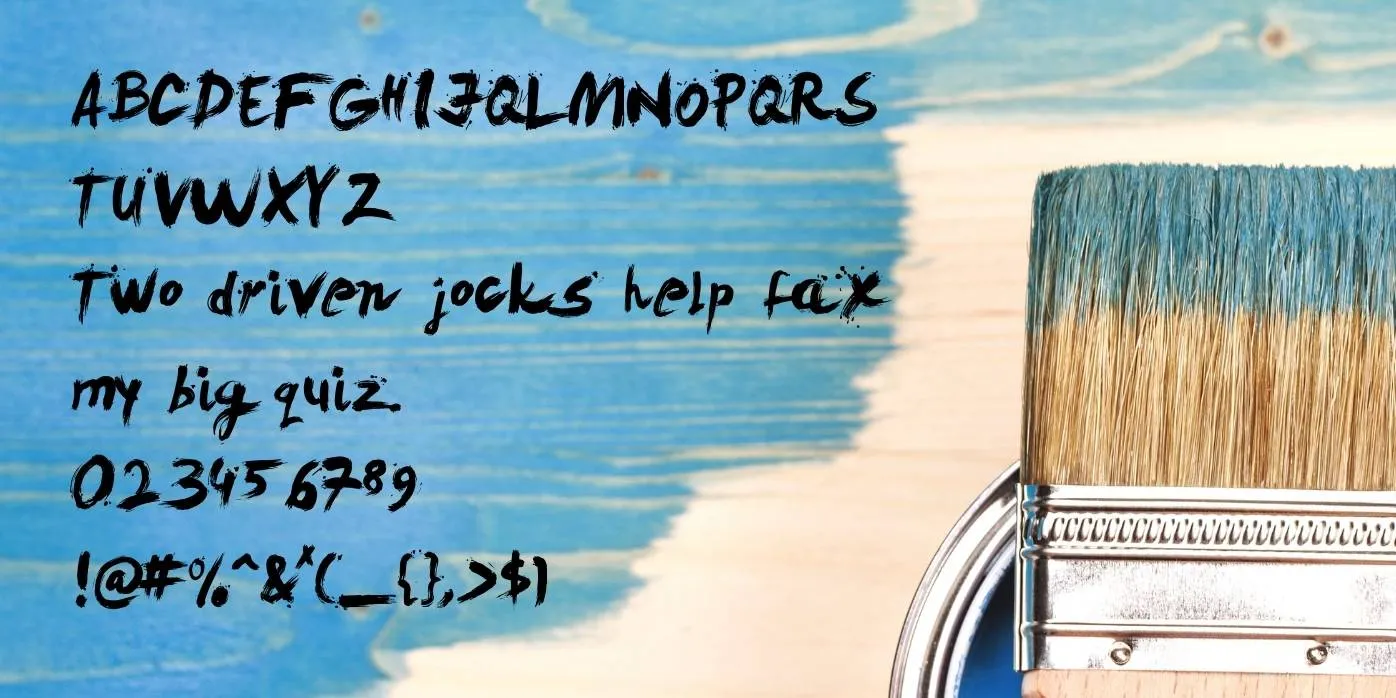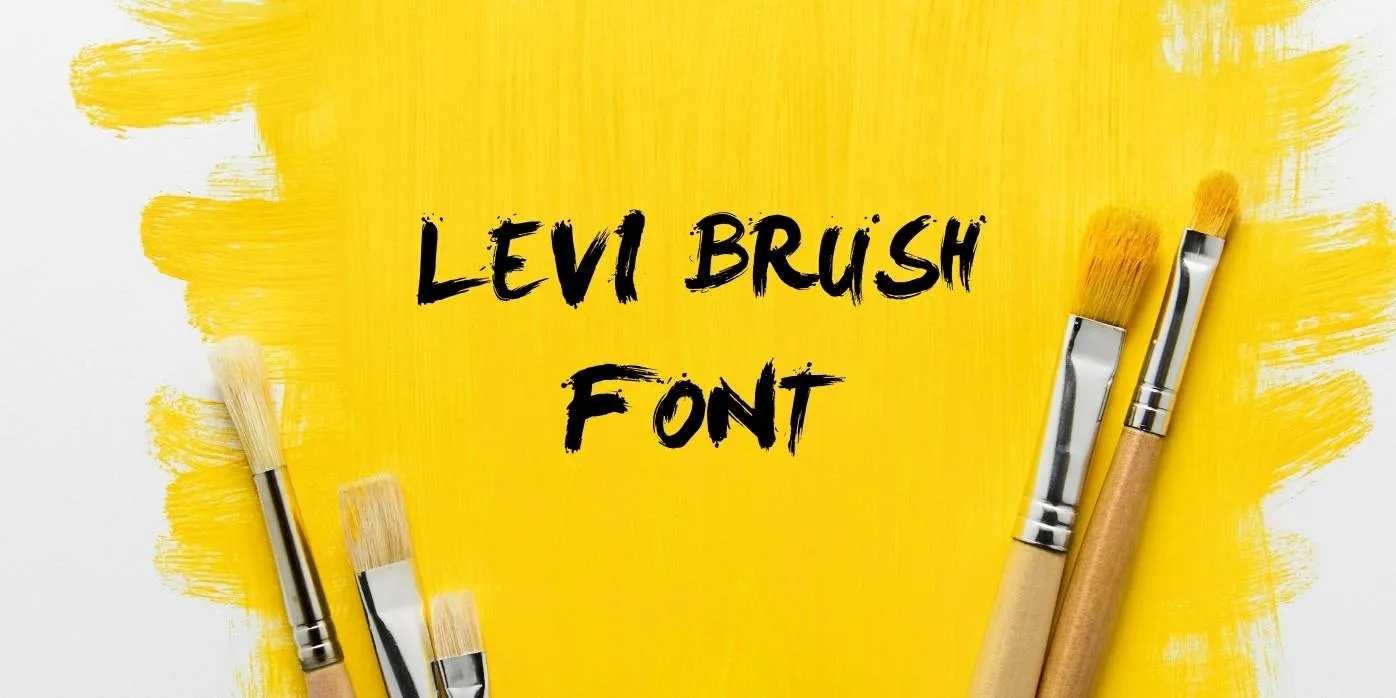
Levi Brush Font
Representing you a very stylish and special font that is Levi Brush Font. It belongs to a Script Typeface Family Font. The designer of this particular font is Levi Szekeres. The font seems hand brushed and that quality makes it more attractive.
The font is free for personal use only. If we talk about its glyphs it comes with characters including Uppercase and Lowercase, Numbers, Special symbols, and some unique characters as well. It has many users due to its unusual look and stunning shape. It has Truetype features and has the ability to support many international languages.
The font family contains only in Regular subfamily. The visual of Levi brush Font increase the standard and characteristic of your design in any situation. Due to its pretty gorgeous brush look the font gives a huge beautiful visual impact to the design.